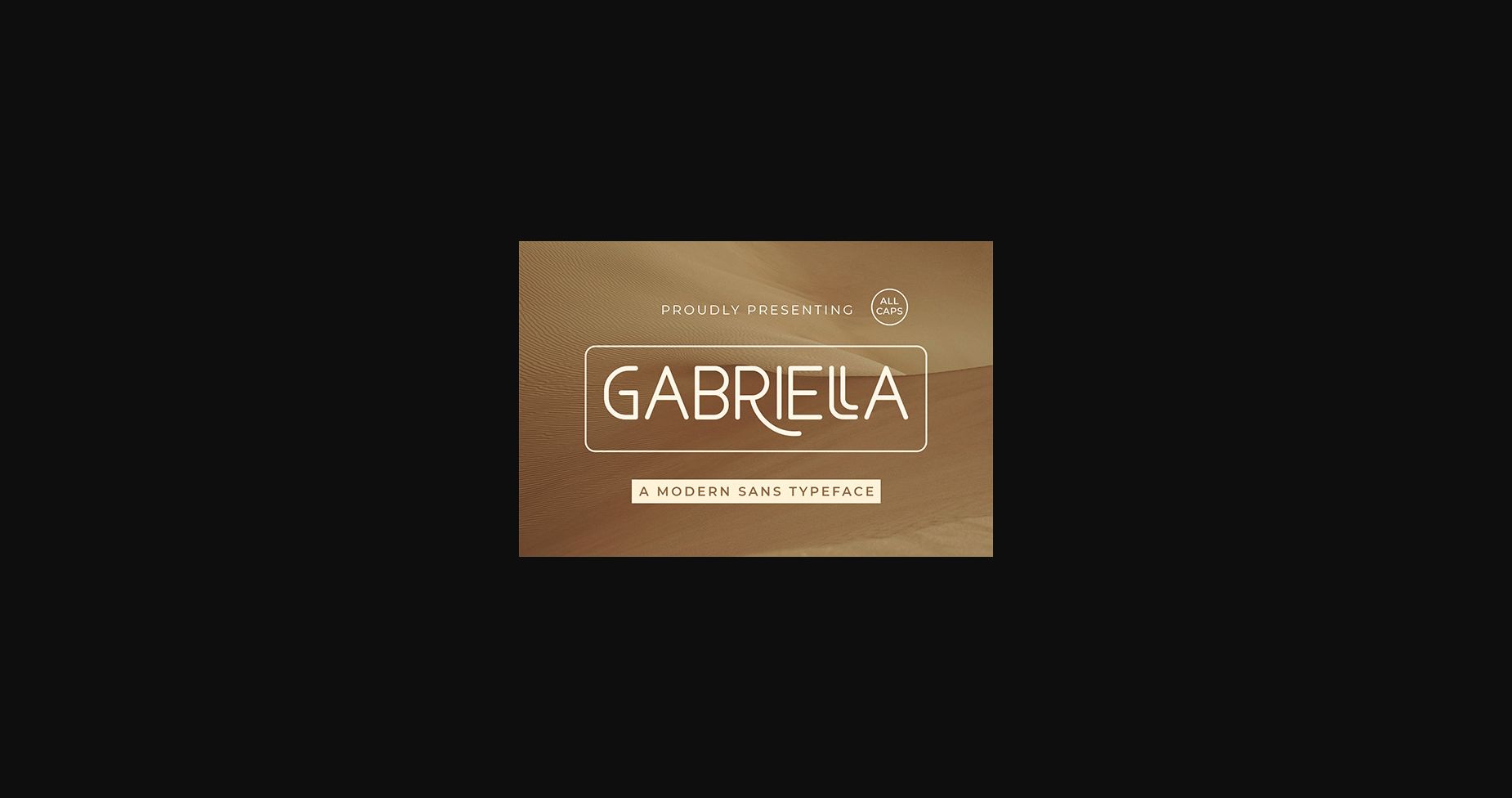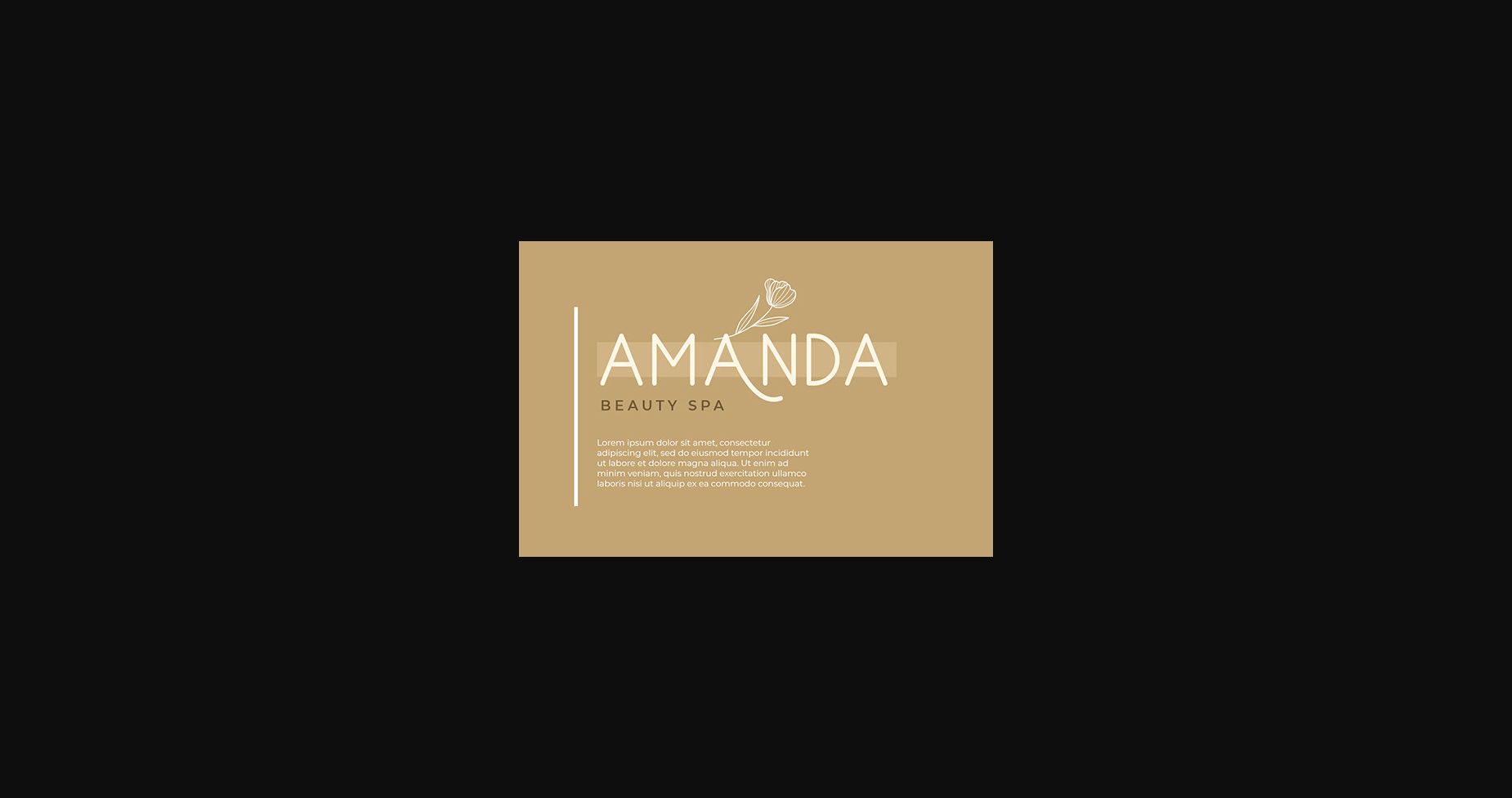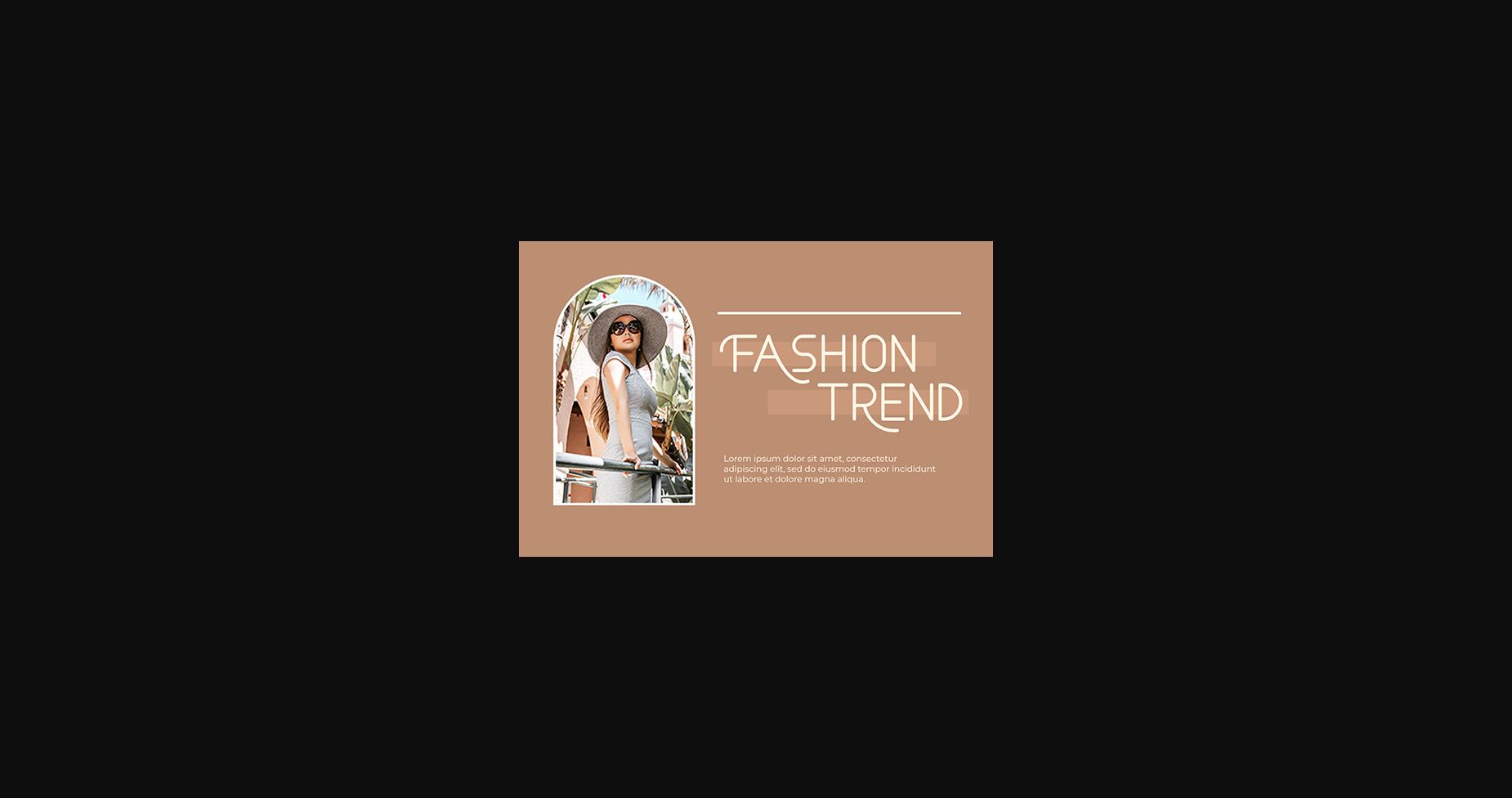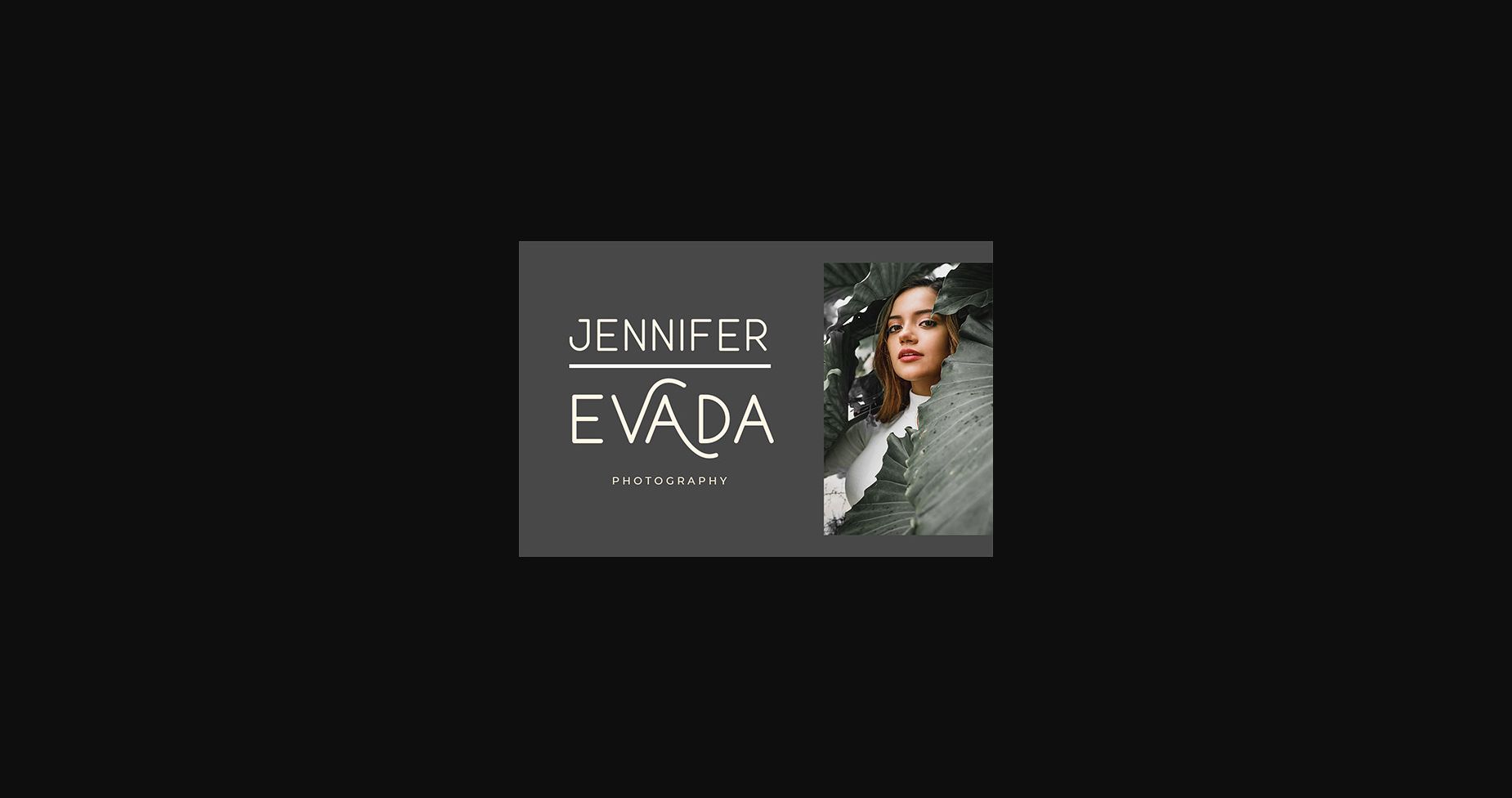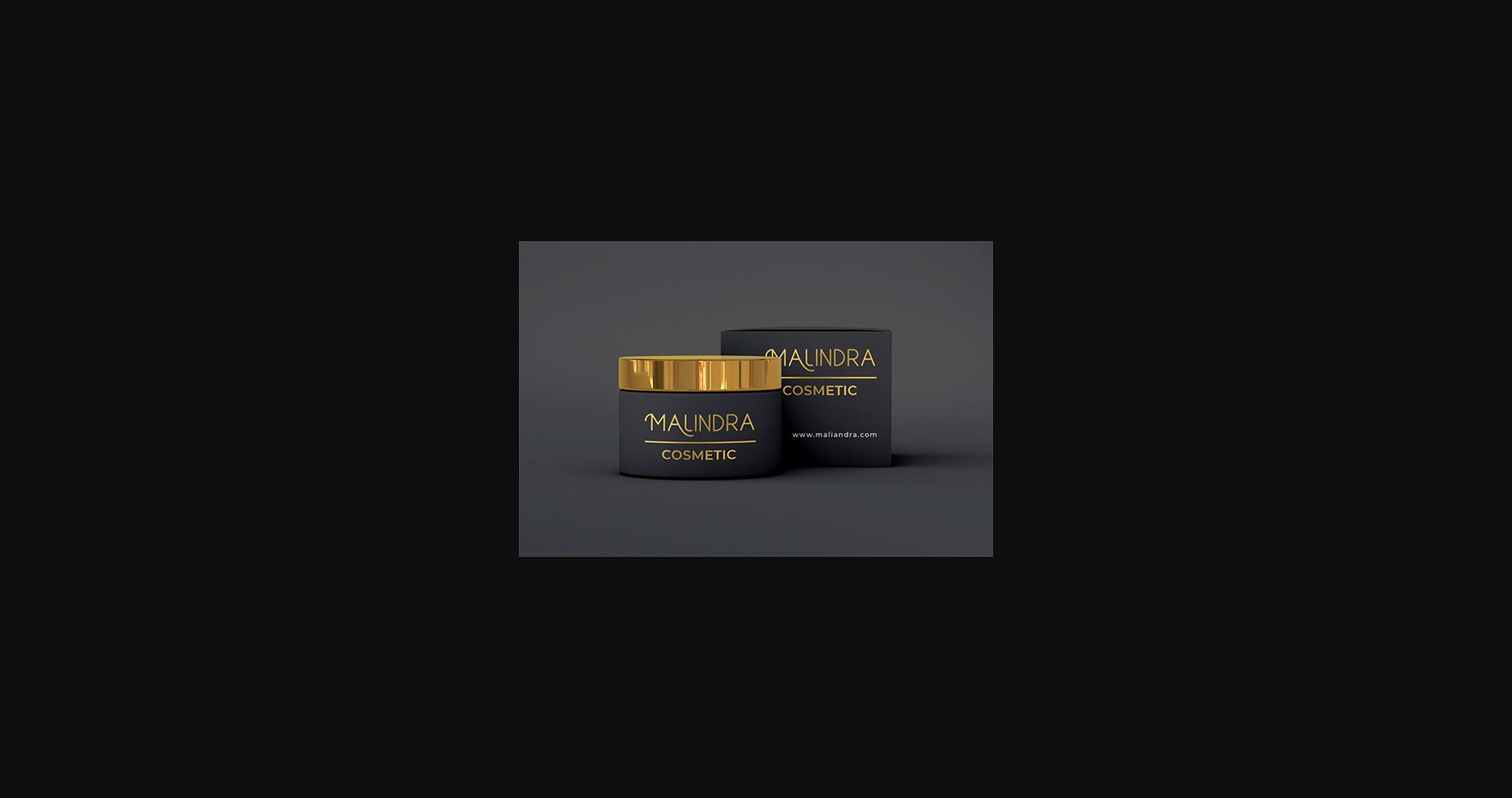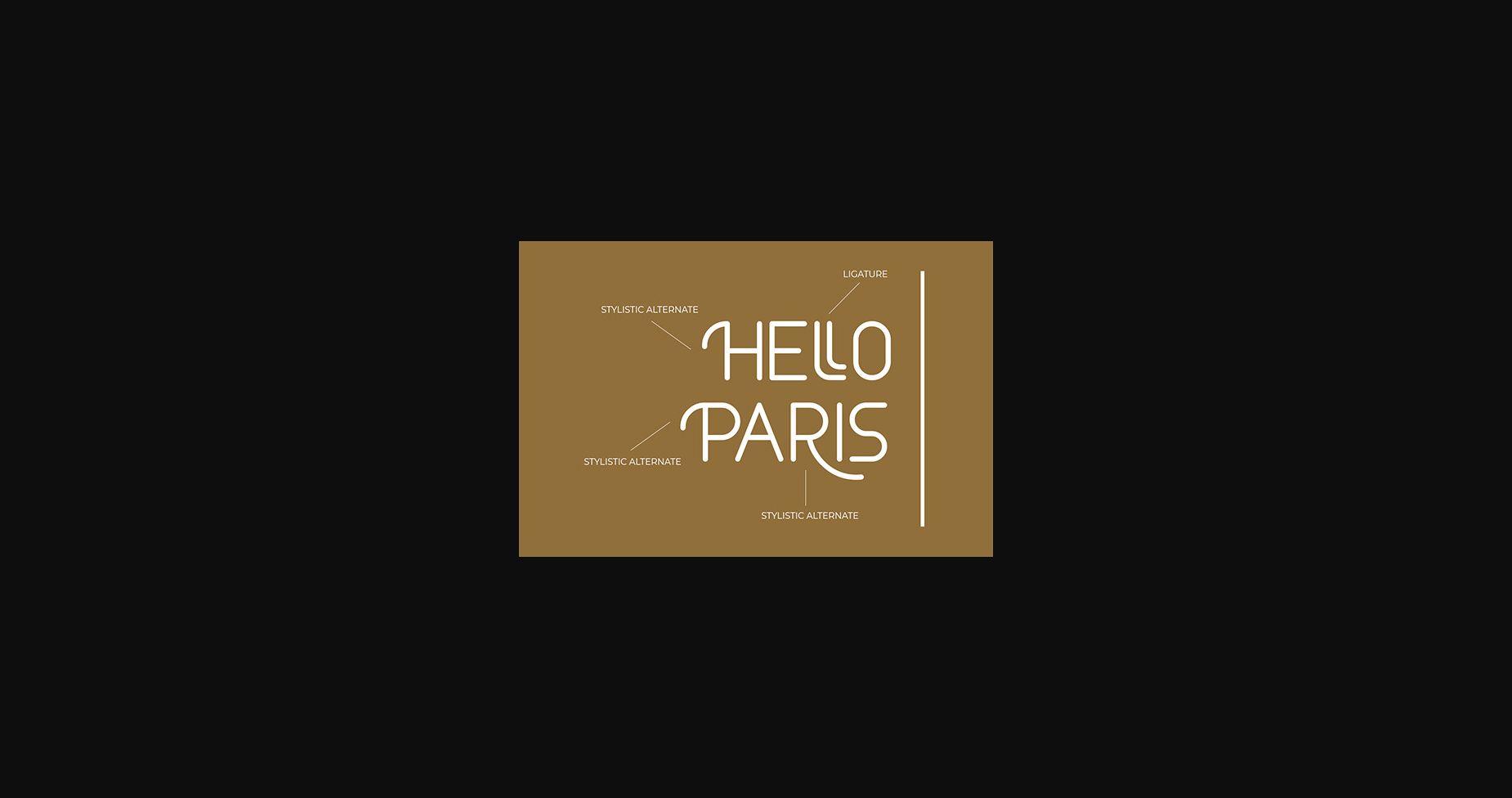
Gabriella Font
About Gabriella Font
Gabriella is a modern and elegant sans serif font. It is PUA encoded which means you can access all of the glyphs and swashes with ease! Add it confidently to your favorite creations and let yourself be amazed by the outcome generated.